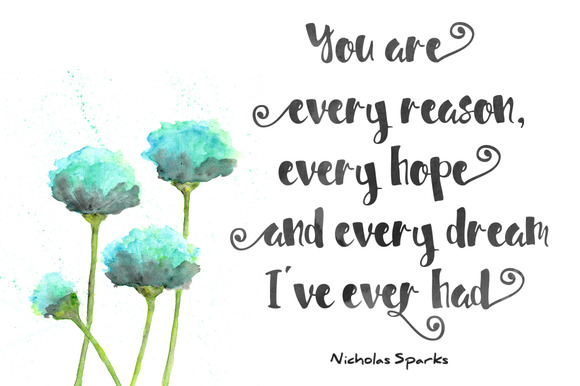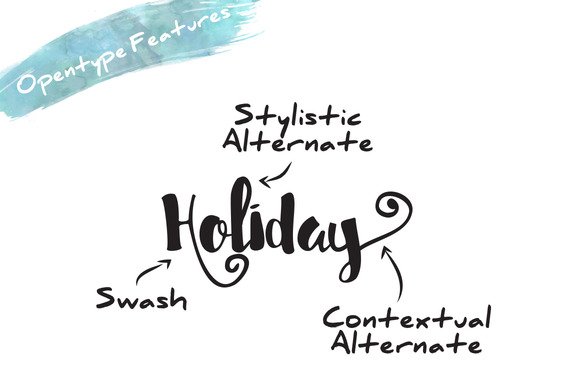
Introduction to Jellysugar Font
Jellysugar Typeface is a beautiful handmade brush script with a natural look.
Key Features of Jellysugar Font
Why Choose Jellysugar Font?
Jellysugar Font offers exceptional quality and versatility, making it a valuable addition to your design toolkit. Whether you’re creating for personal projects or commercial use, Jellysugar Font delivers professional results.